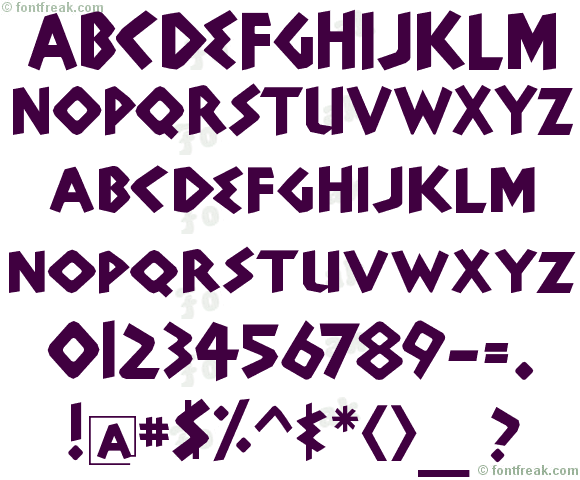
Dyonisius
Dyonisius is a striking display font designed by Manfred Klein, classified as a decorative typeface. This unique font captures attention with its bold strokes and playful character shapes. The design features a balanced stroke weight, giving it a sturdy appearance while maintaining a whimsical flair. The characters are well-spaced, allowing for readability without sacrificing style. Dyonisius comes with interesting decorative elements that add a touch of creativity, making it a perfect choice for various artistic projects.
This font shines in several specific use cases. It is an excellent choice for wedding invitations, where its unique style can create a memorable first impression. Additionally, Dyonisius works beautifully for movie posters, as its dynamic characters can effectively convey excitement and drama. Restaurant menus can also benefit from this font, providing a touch of elegance and sophistication that can enhance the dining experience. Graphic designers looking to create eye-catching marketing materials will find Dyonisius particularly useful, as well as small business owners aiming to establish a distinctive brand identity.
What sets Dyonisius apart is its ability to blend playful creativity with a professional presence. This font not only stands out visually but also evokes a sense of personality that can elevate any design project. For those seeking to enhance their work, the Dyonisius font free download is an opportunity to introduce a unique typographic element into their designs.